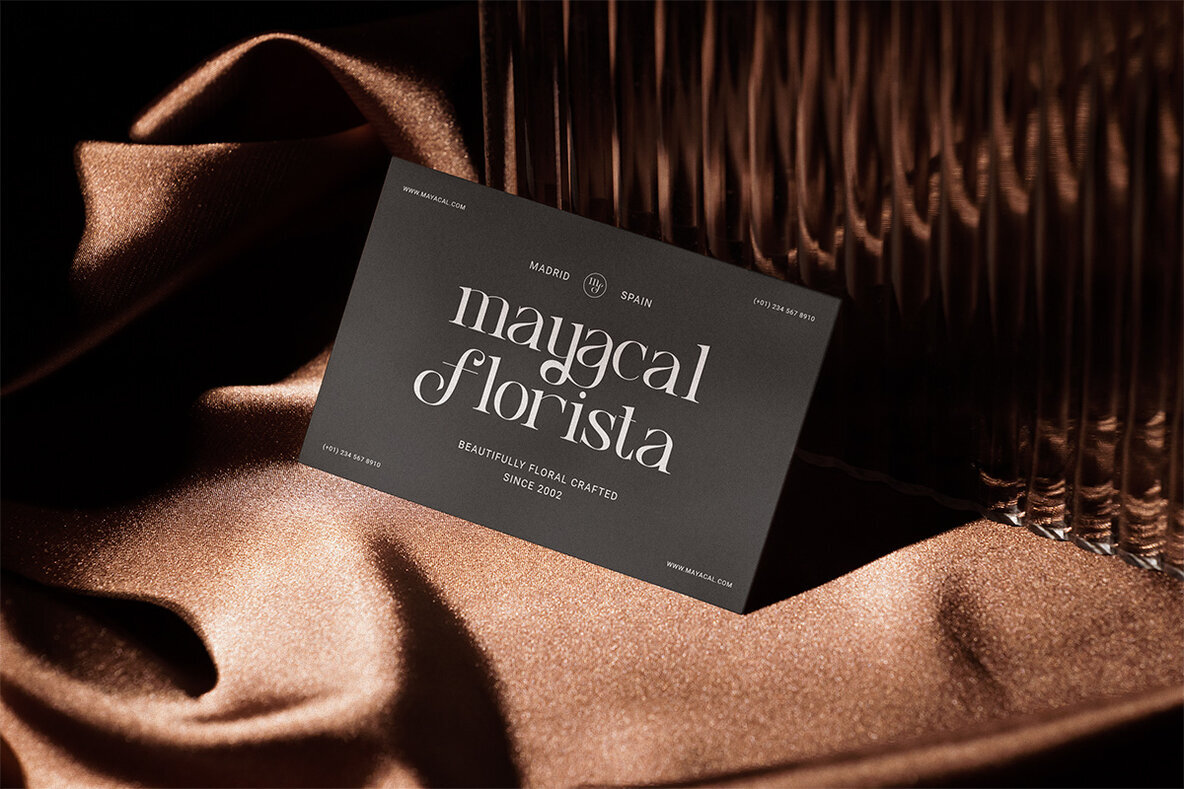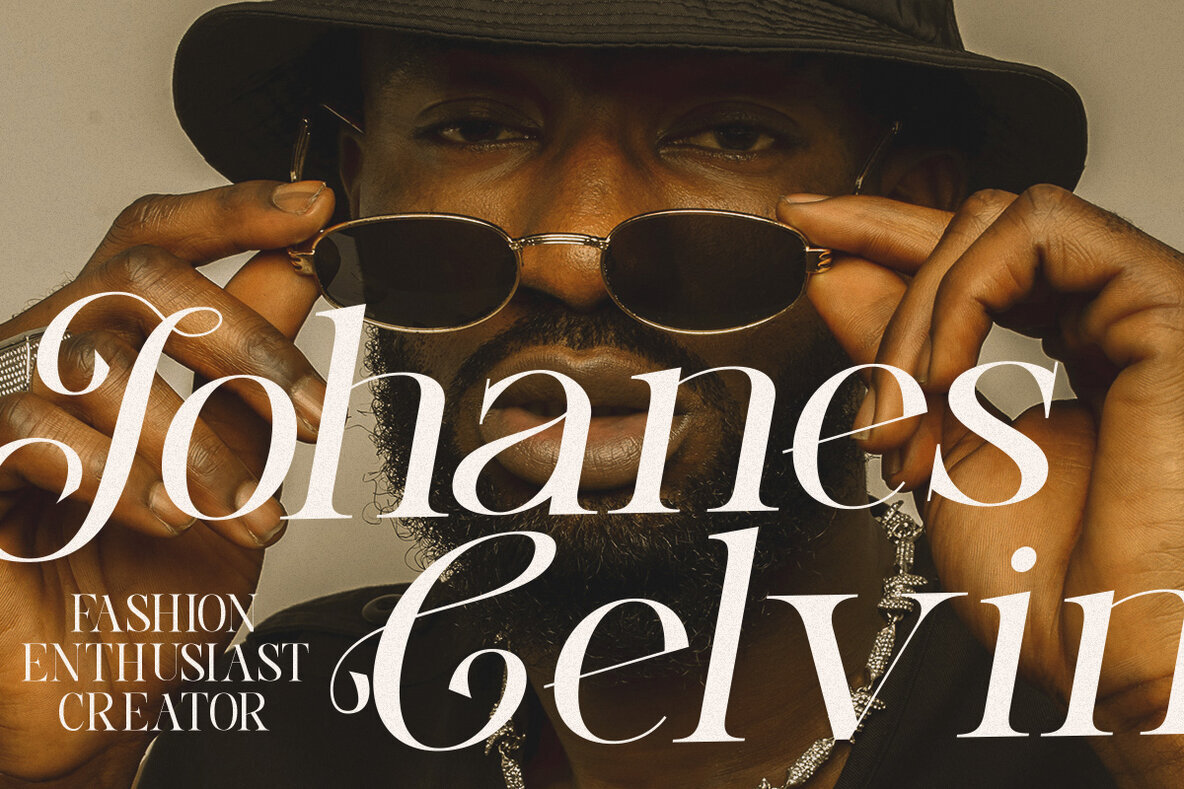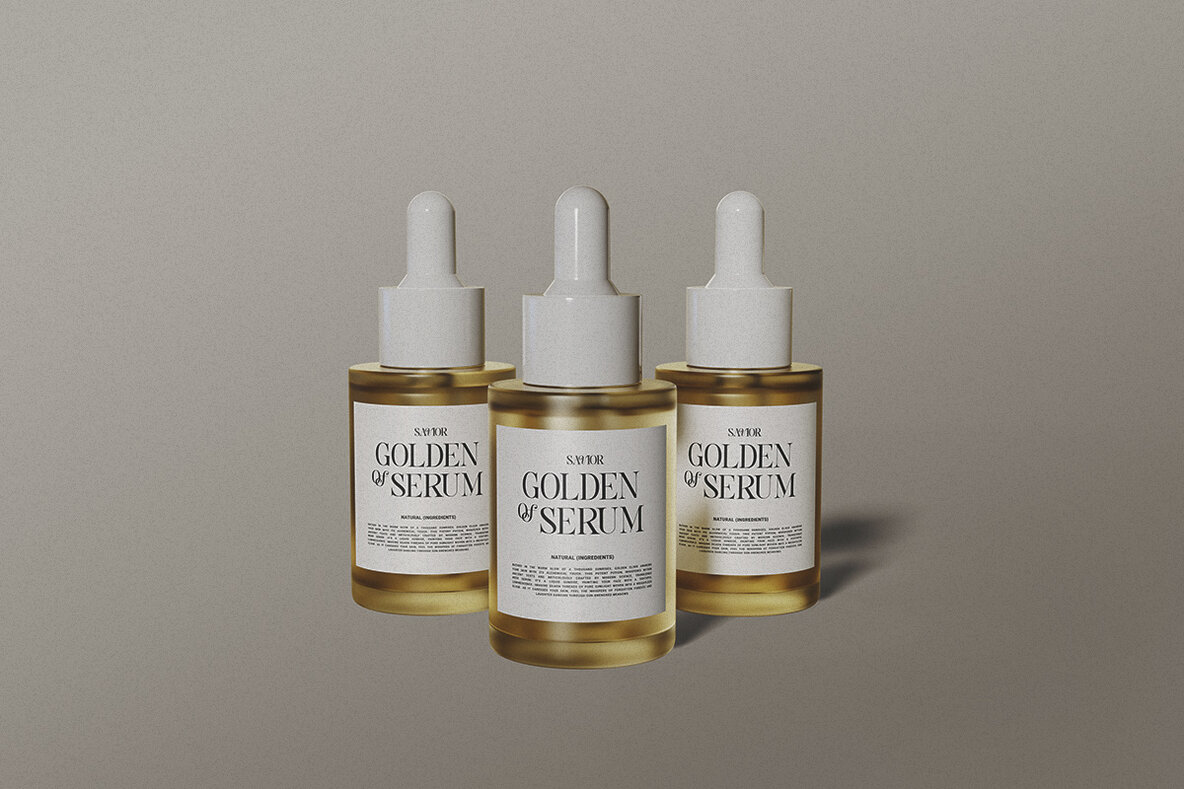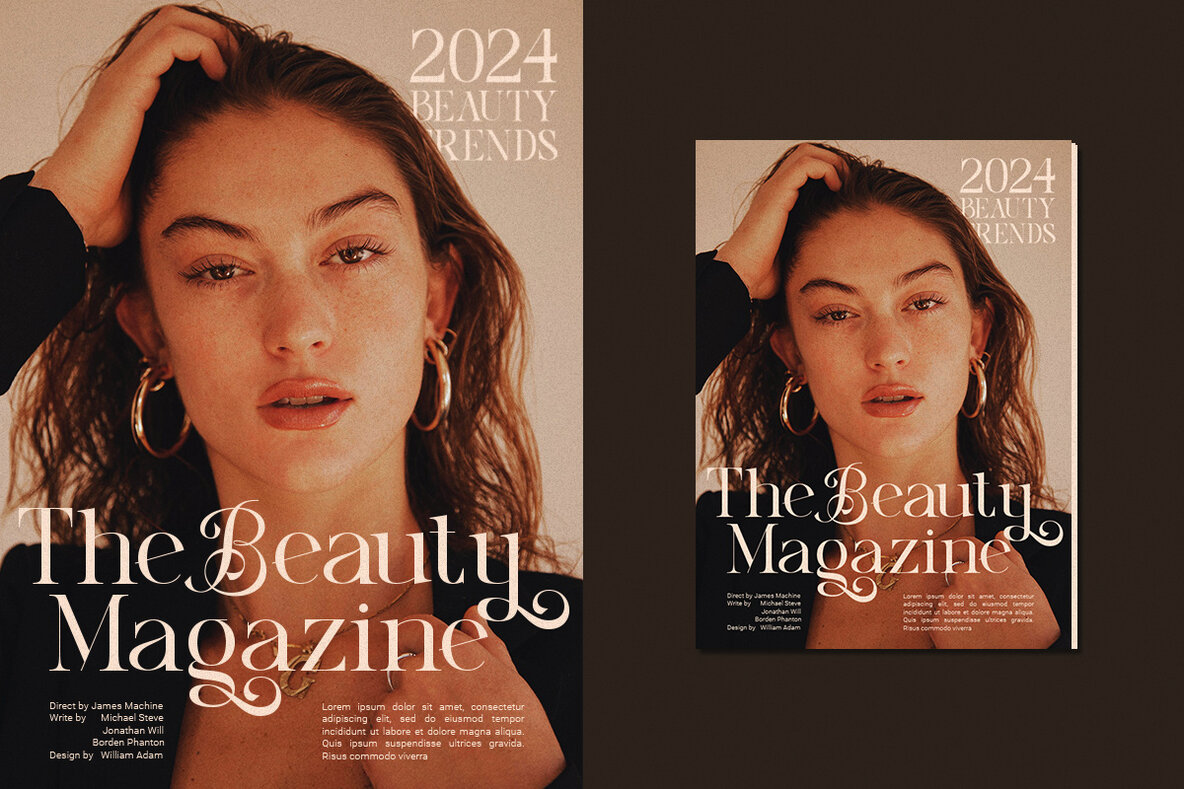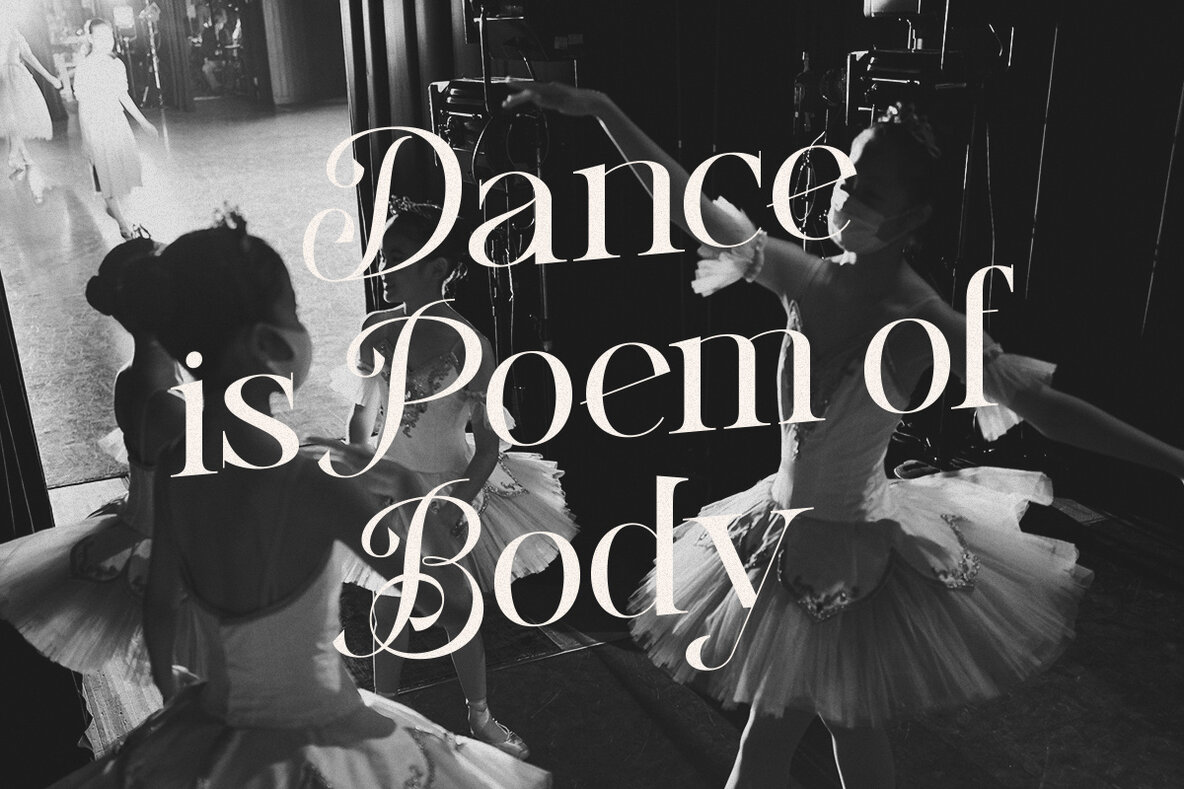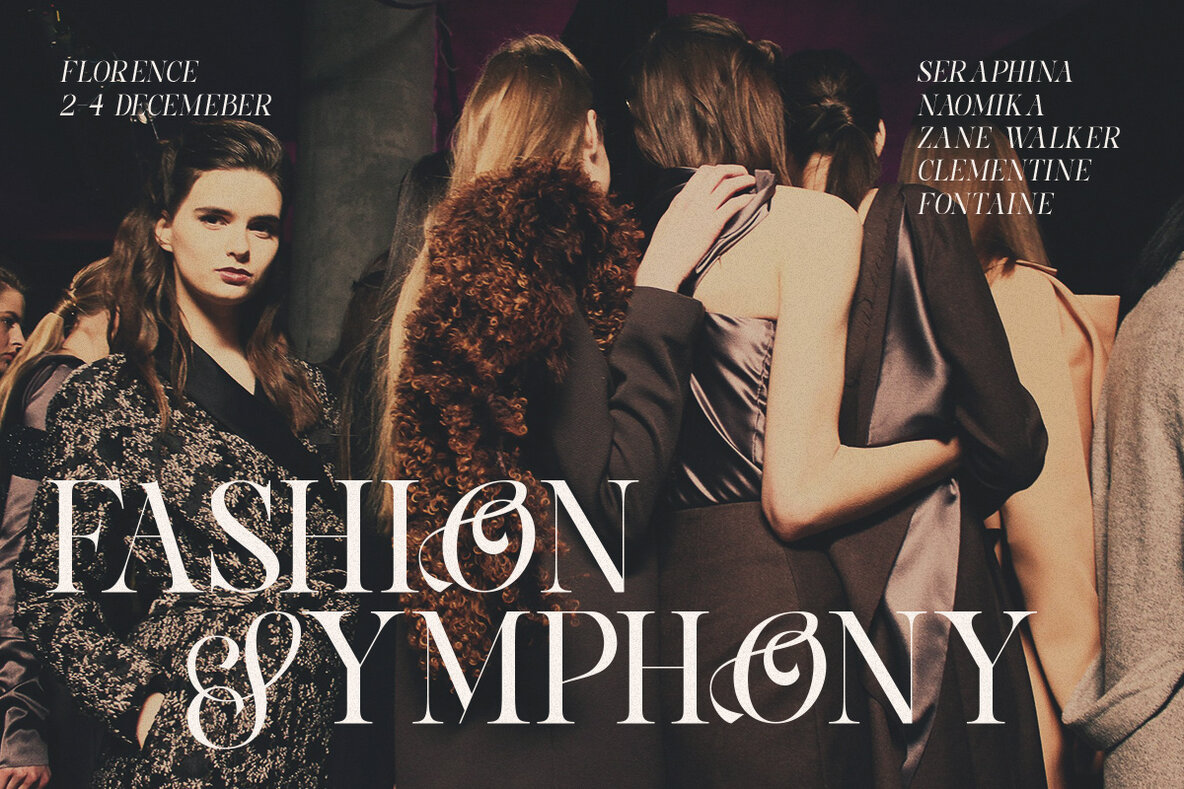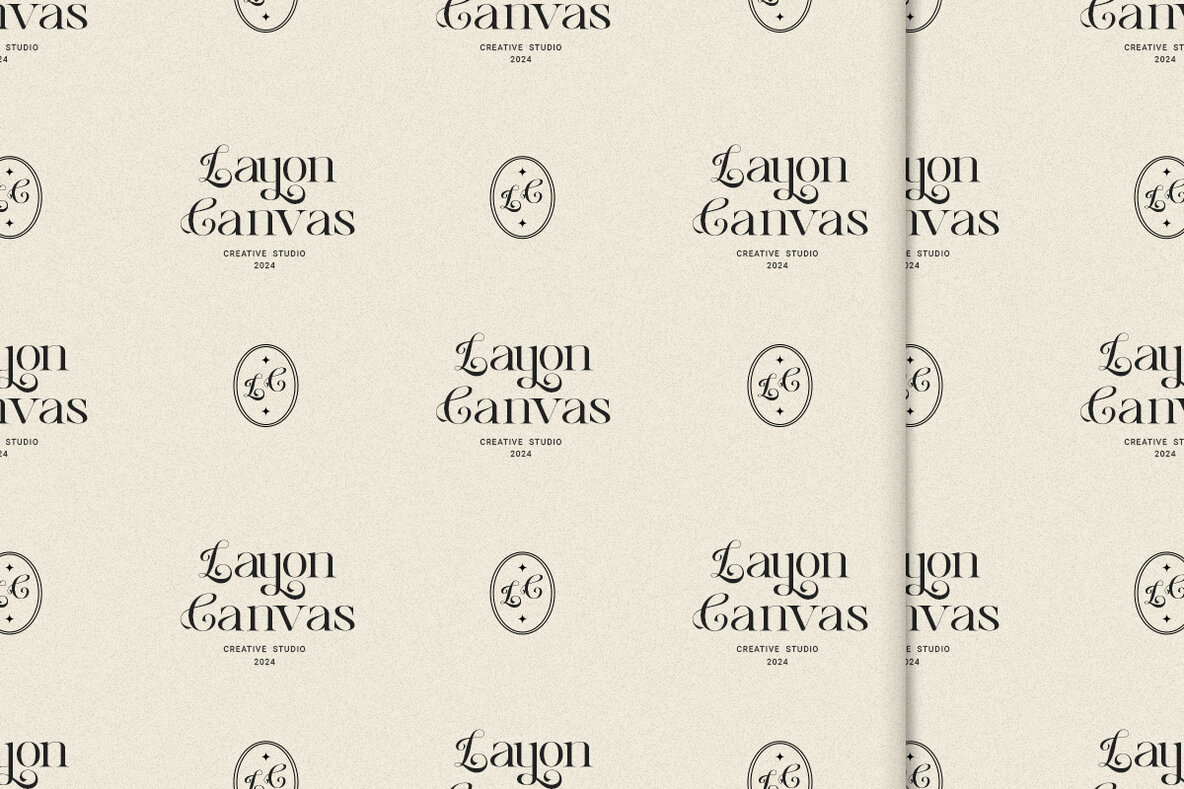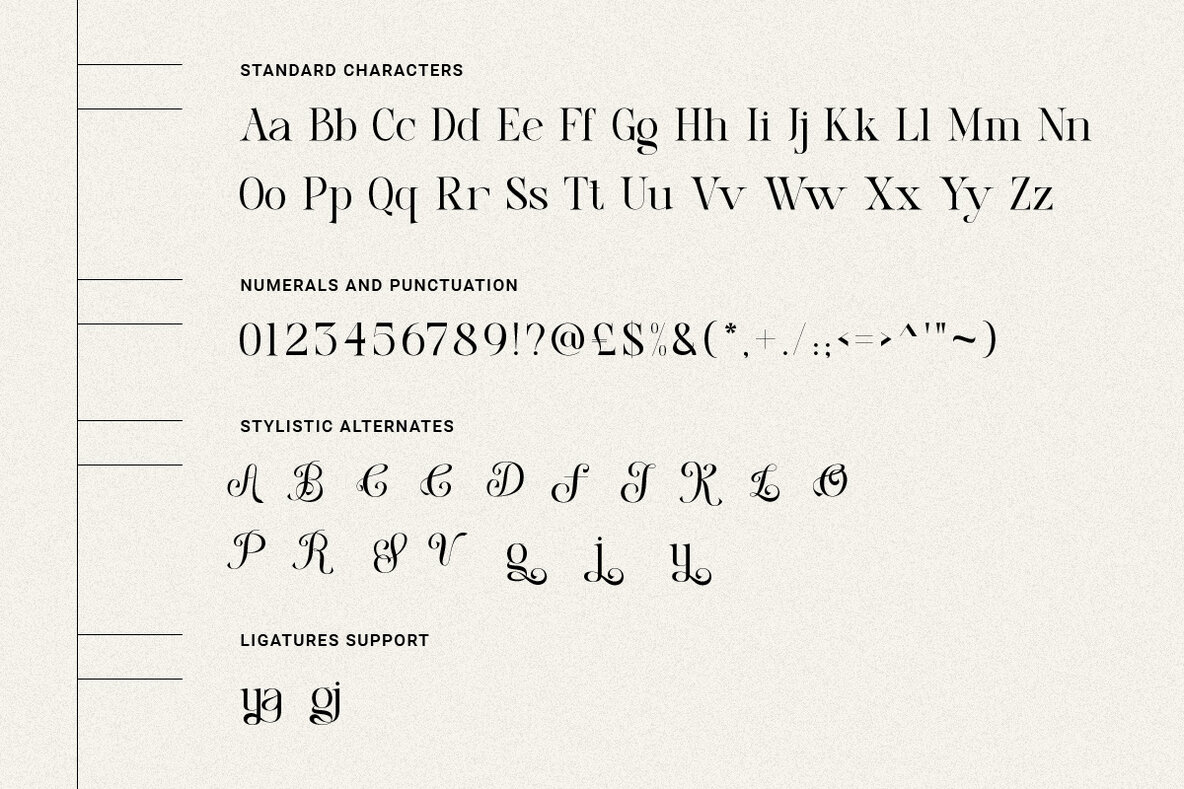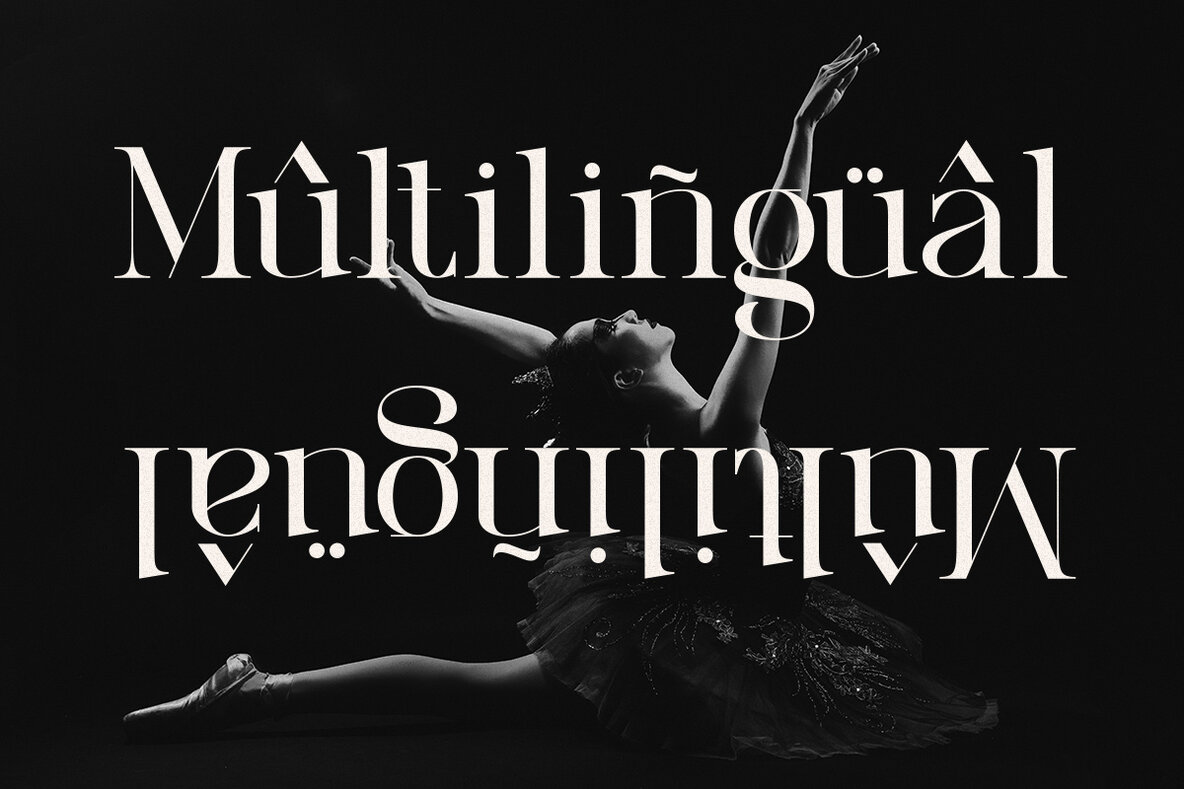
Luxe Bonanza is a unique serif font that combines the best of both old and modern styles. Created with a commitment to quality, Luxe Bonanza offers a vast range of styling alternatives, swashes, ligatures, and decorative elements. This font's versatility and elegance make it a valuable asset for various design projects, from wedding invitations to stylish quotes. Luxe Bonanza's classic shapes and modern features make it suitable for a diverse array of applications. Whether you're designing blog graphics, art prints, or wedding stationery, Luxe Bonanza adds a touch of sophistication and charm to every project. Explore other unique serif fonts like Luxe Bonanza at YouWorkForThem. Visit our Serif Fonts and Decorative Fonts collections to find the perfect font for your design projects. Luxe Bonanza's combination of classic elegance and modern versatility will elevate your design work. Get this font today and explore the endless possibilities it offers for personal, commercial, or enterprise use.Luxe Bonanza: A Modern Serif Font with Classic Elegance
The Versatility of Luxe Bonanza
Key Features of Luxe Bonanza